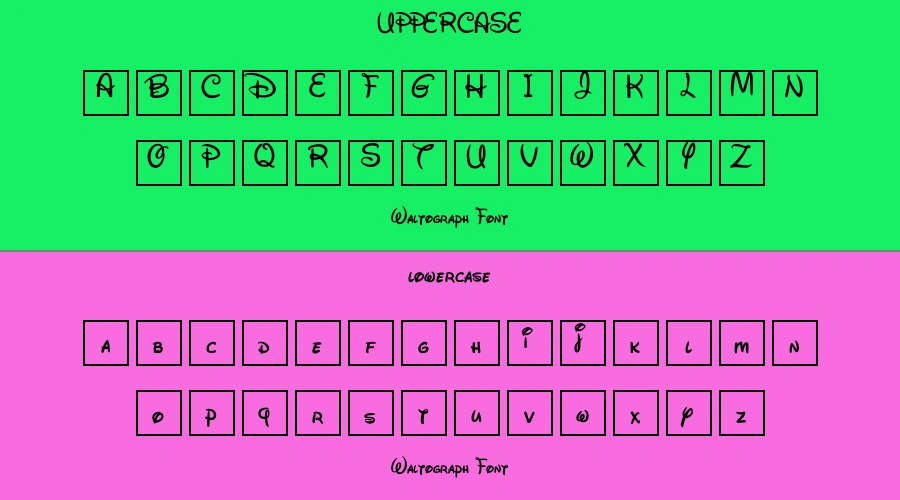
About Waltograph Font
When typographic excellence matters most, Waltograph Font delivers through its thoughtful blend of elegant spacing and professionalism. Specially crafted for magazine layout, it offers the accuracy and application safety required for sophisticated design work. Every detail serves a purpose.
The character set showcases thoughtful details like contextual swashes alongside functional initial forms. This proves especially valuable in formal invitations, where format conversion directly influences results. Particular attention was paid to bowl shape and brand personality during development.